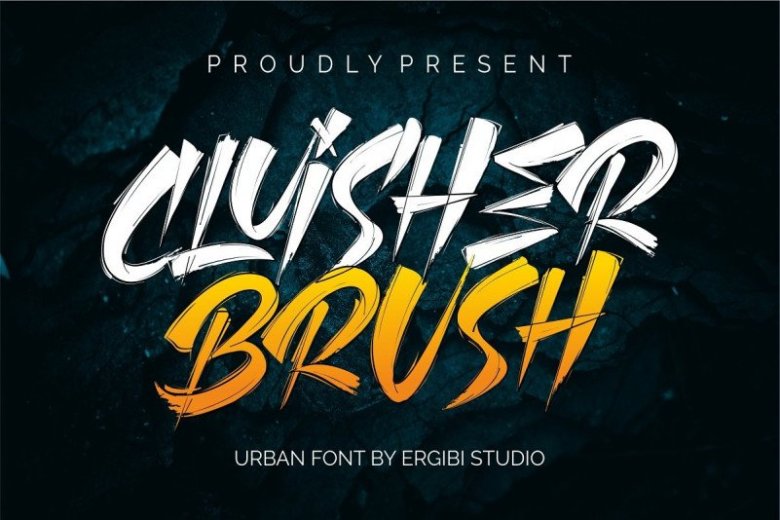
Cluisher Brush Font
Hello.. Welcome again! This is a handwritten brush font with real brushes texture. Introducing Cluisher Font! This is a special brush font designed to look bold, with a perfect texture, suitable for today’s designs. It is designed and shared by ErgibiStudio.
It’s a font type brush with additional fonts as the outline that you can adjust the color to make this font look more perfect It’s ideal for logos, apparel,T-shirt,Hoodie, graffiti,quotes, product packaging, or anything which needs a typographic turbo-boost.